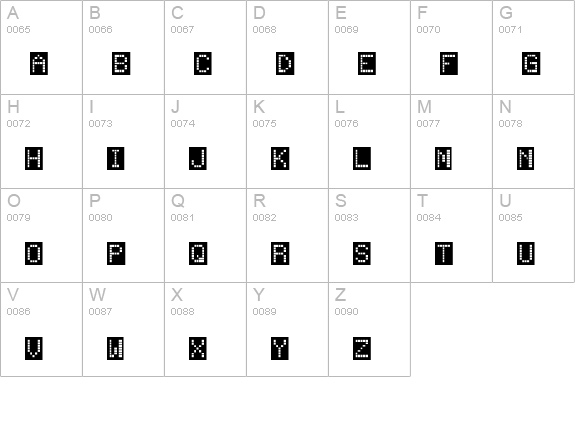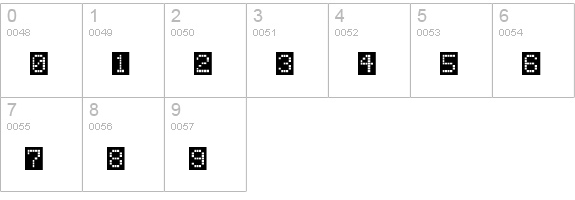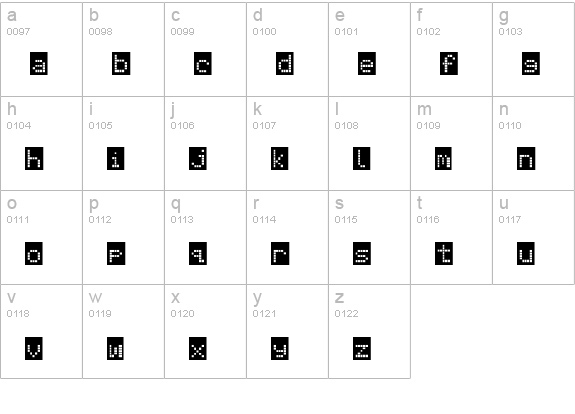
Erbos Draco 1st NBP Regular Font Details
Erbos Draco 1st NBP Regular is the standard, neutral variant in the Erbos typeface family \xE2\x80\x94 well suited to general body text, paragraphs, and standard typographic work.
Erbos Draco 1st NBP Regular font is an exquisite typographic masterpiece that effortlessly combines elegance and modernity. With its sleek lines and perfectly balanced proportions, this font exudes a timeless charm that is sure to captivate any reader. The Erbos Draco 1st NBP Regular font is perfect for a wide range of design projects, from branding and packaging to editorial layouts and web design. Its versatility and legibility make it a go-to choice for both print and digital applications. This font is not only visually stunning but also incredibly functional. The meticulously crafted letterforms ensure optimal readability, even at smaller sizes. Each character is precisely designed to maintain consistent spacing and kerning, resulting in a harmonious and visually pleasing overall appearance. One of the most appealing aspects of the Erbos Draco 1st NBP Regular font is that it is freely available to download at FontsMarket.com. Whether you are a professional designer or a typography enthusiast, this font is a must-have addition to your collection. Its affordability and accessibility make it the perfect choice for any project, big or small. In conclusion, Erbos Draco 1st NBP Regular font is a true gem in the world of typography. Its captivating design, versatility, and functionality make it a valuable asset for any designer. Don't miss out on the opportunity to enhance your projects with this remarkable font, freely available for download at FontsMarket.com.